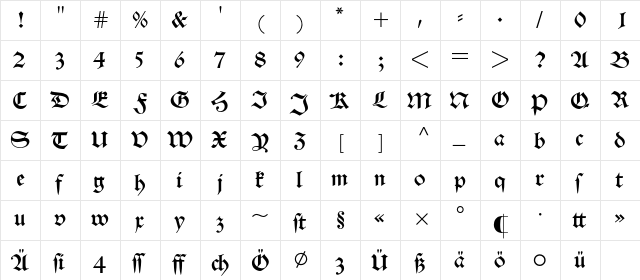
Alte Schwabacher BQ Regular
Design Context for Alte Schwabacher BQ Typeface
Alte Schwabacher BQ is a composed and adaptable typeface that performs quietly and consistently across a wide range of design contexts.